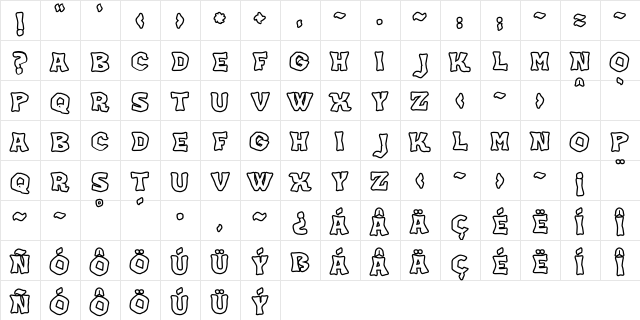
JMH KORAK OUTLINE Regular
Design Context for JMH KORAK OUTLINE Typeface
JMH KORAK OUTLINE is built around its visual character rather than neutral utility — its distinctive forms are designed to make an impression at display sizes.
Font Pairing: Pair with a clean neutral sans-serif for body copy to let JMH KORAK OUTLINE's character lead without overwhelming the composition.
Pro Tip: Treat JMH KORAK OUTLINE as the centrepiece of your typographic hierarchy. One strong heading set in a decorative face can carry an entire layout.